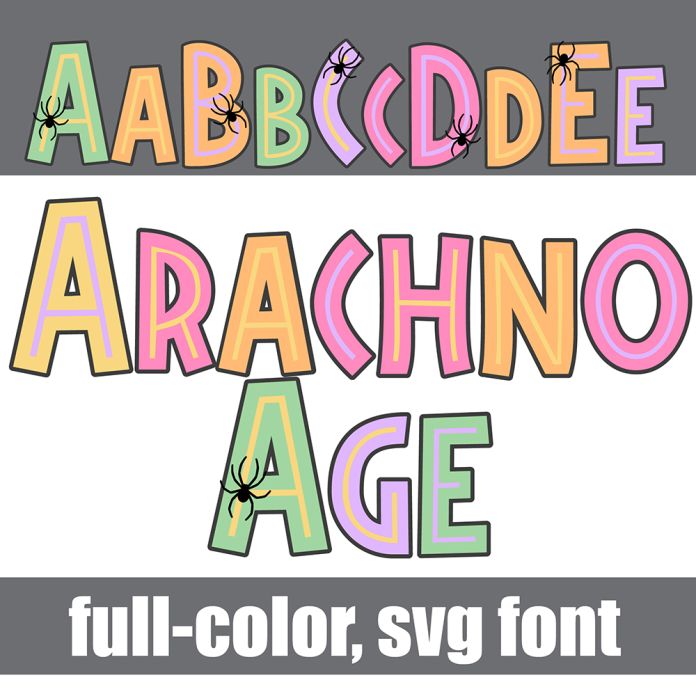
This full-color font features a modern Halloween color palette with spiders on the uppercase. There is an alt version you can access through your system's character map that contains additional colors of all the letters. This font works best for titles, displays, posters and more. Please note color fonts will show as black in non compatible programs. This font type is compatible with Silhouette Studio.